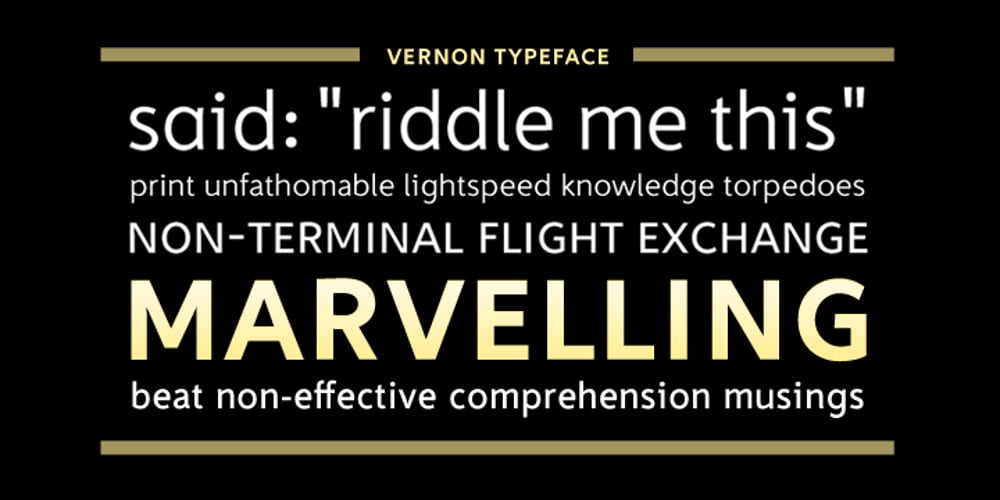
Vernon Font Family was designed by Giles Edwards and published by Giles Edwards. Vernon contains 1 styles and family package options. Vernon’s inspiration came while researching and investigating a ‘legible’ typeface design for tangible purpose. The main characteristics of ‘Vernon’ can be seen in the slightly modulated strokes that reference the natural and friendly humanist proportions of the humanist hand, with open interior letterspace characteristics. The subtle detailing and finishing of strokes and junctions – seen in the curved tail of the lowercase ‘l’ and the head serif of the lowercase ‘i’, create a smooth rhythm along the baseline. Utilizing the ‘contextual alternative’ feature of OpenType, Vernon substitutes select characters in words with word-shapes that may cause visual confusion to some readers. Vernon uses subtle character differentiation in the detailing of the inner-shape / counter space from similar letter shapes (for example: ‘p’, ‘d’, ‘g’ and ‘q’) to assist in creating the contextual alternate designs. Vernon is recommended for use as a text typeface, as it performs well at small text sizes (12 point size and below) intended for continuous reading of printed instructional and presentational information, especially where an inclusive audience demographic is required.